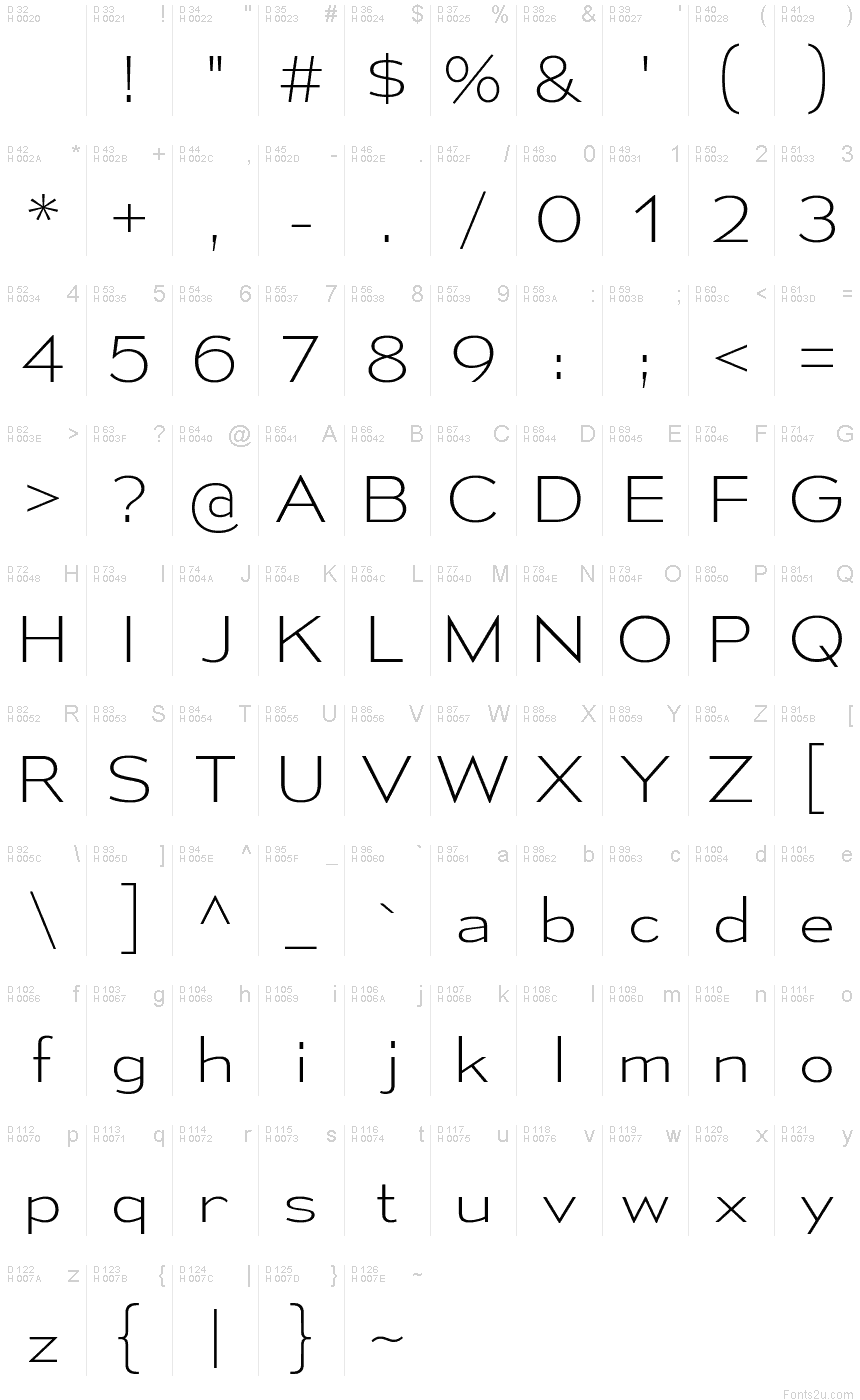
MesmerizeSeEl-Regular
Mesmerize is a low x-height sans-serif font family with 80 styles. There are 8 weights, 5 widths and italics. The capital I will automatically be replaced by a serifed I when followed by a lowercase l. In OpenType savvy applications, you can access old-style numerals, tabular lining numerals and tabular old-style numerals.
Mesmerize Se El